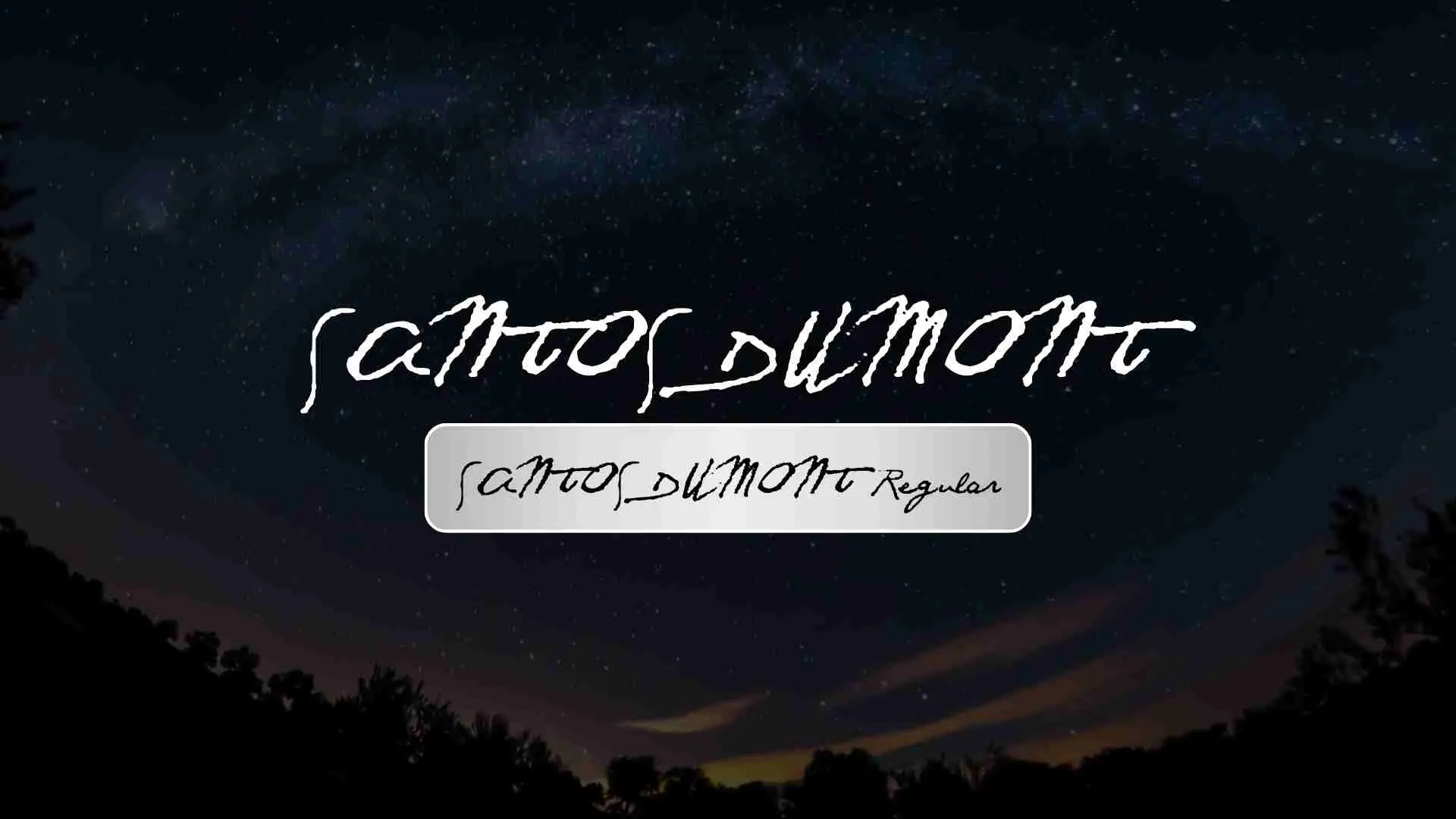
The font SANTOS DUMONT Regular, designed by Billy Argel, falls under the Display, Script category & SANTOS DUMONT font family. Its smooth, flowing letterforms make it a versatile choice for projects that require both elegance and readability. SANTOS DUMONT is particularly well-suited for Branding, Apparel, Entertainment, Music, Merchandise and Action/Sport Titles. With its balance of simplicity and decorative appeal, this font brings a polished touch to both personal and professional designs.